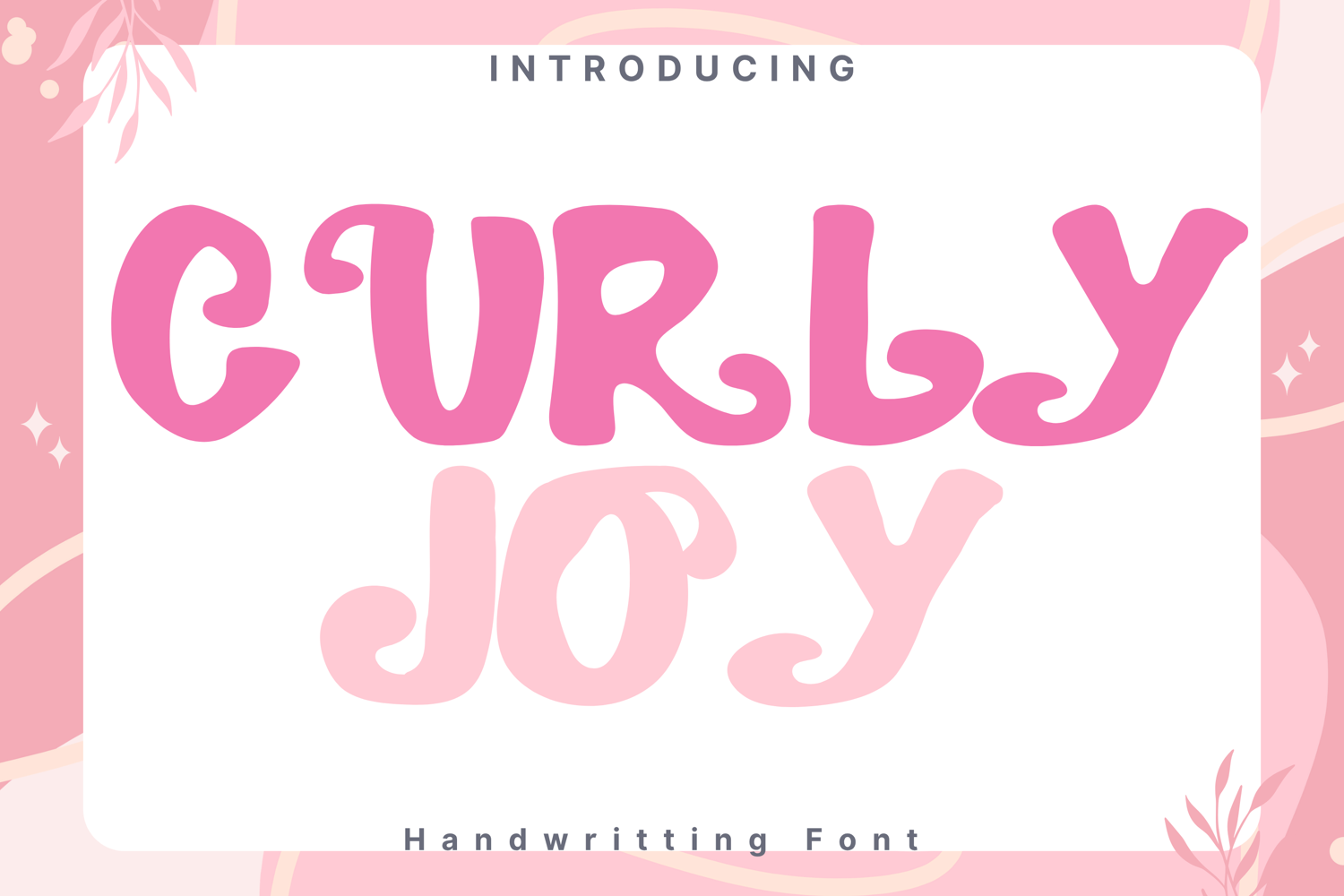
Curly Joy Style
CurlyJoy
Curly Joy is a playful, bold handwritten font that radiates happiness and charm. Its bubbly letterforms feature whimsical curls and thick strokes, giving it a fun, childlike personality. Perfect for designs that need a cheerful and expressive look, such as kids' products, party invitations, kawaii-themed branding, cute packaging, or joyful social media graphics. Its balanced curves and smooth flow make it friendly, approachable, and eye-catching — ideal for projects that want to stand out with a smile.